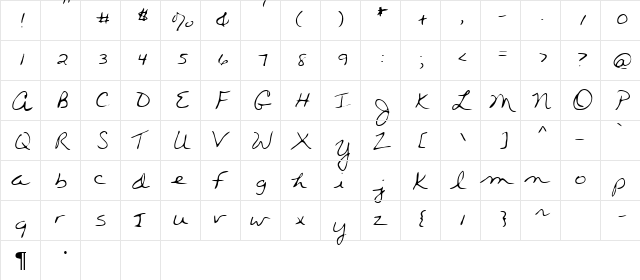
Holitas Regular
Design Context for Holitas Typeface
Holitas is a composed and adaptable typeface that performs quietly and consistently across a wide range of design contexts.